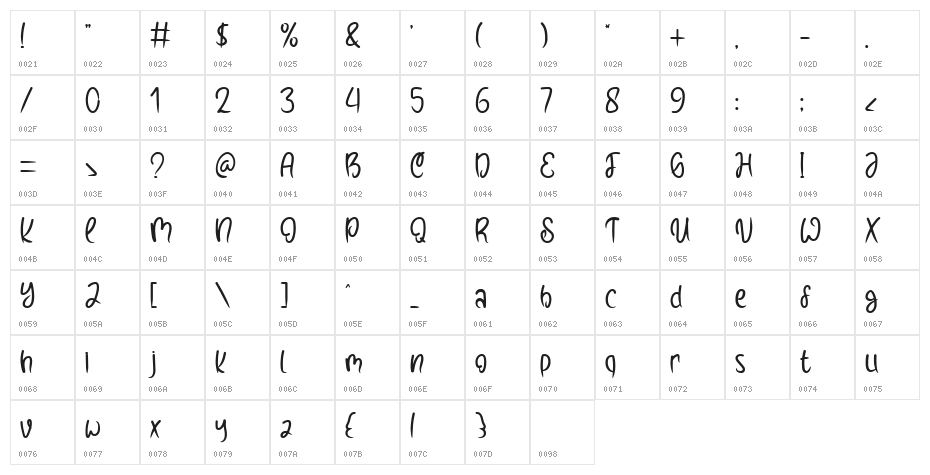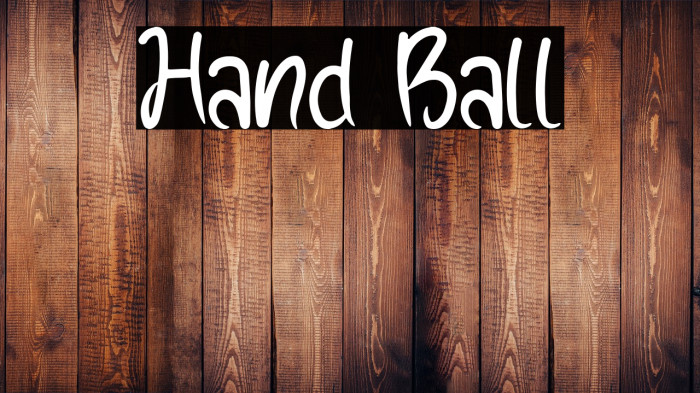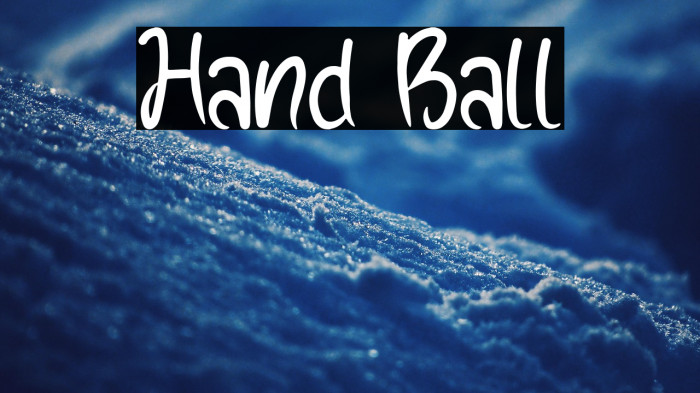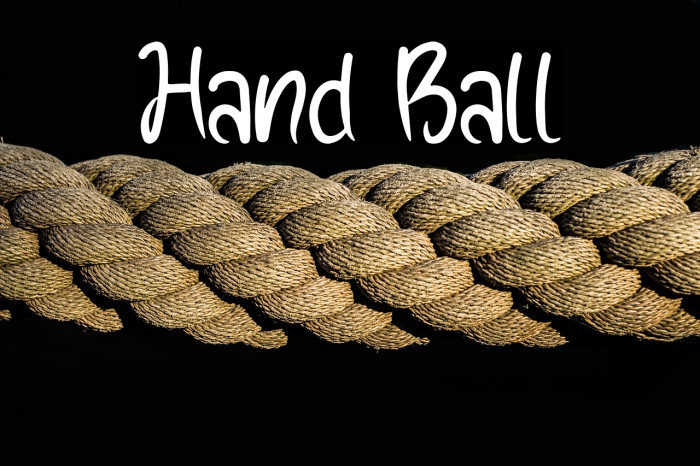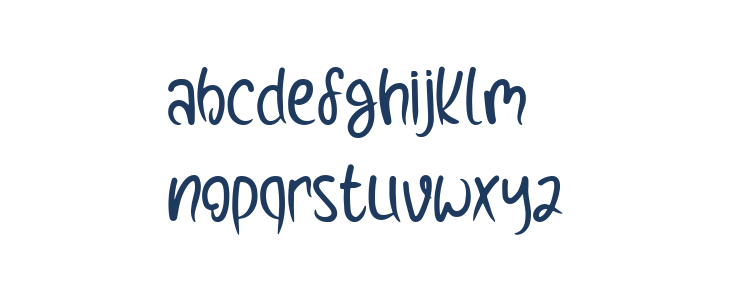
Hand Ball Font
Hand Ball Description
This font features a playful and energetic script style, characterized by its flowing, hand-drawn appearance. The letters are bold and rounded, with a consistent stroke width that gives it a cohesive look. The uppercase letters have a whimsical flair, with some characters extending slightly above the baseline, adding to its dynamic feel. The lowercase letters maintain a similar style, with smooth curves and a casual, handwritten touch. The numerals are clear and legible, matching the overall aesthetic of the font. Special characters are included, maintaining the same lively and informal design.
| Overall Style | Playful, Casual |
| Use Case | Logos, Headlines, Posters |
| Proposed Projects | Ideal for greeting cards, playful branding, children's books, and creative posters. |